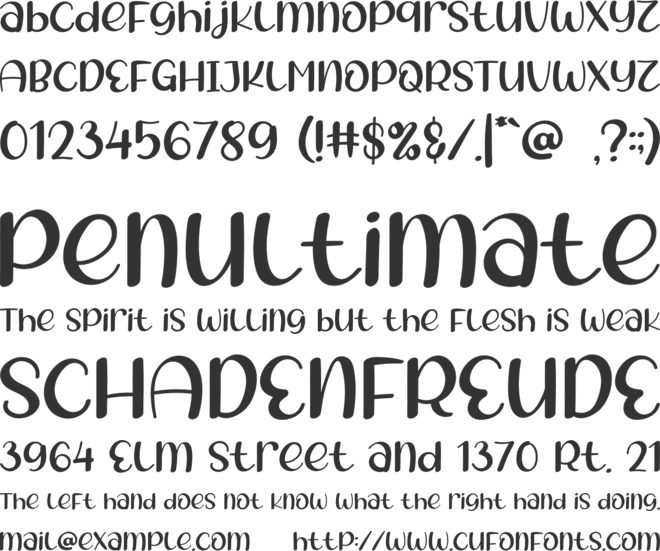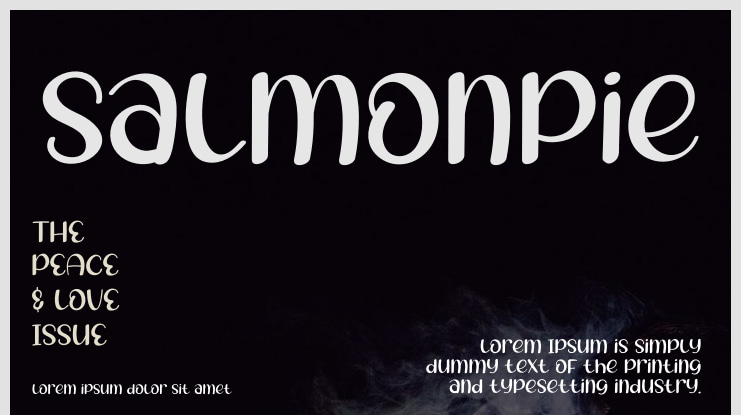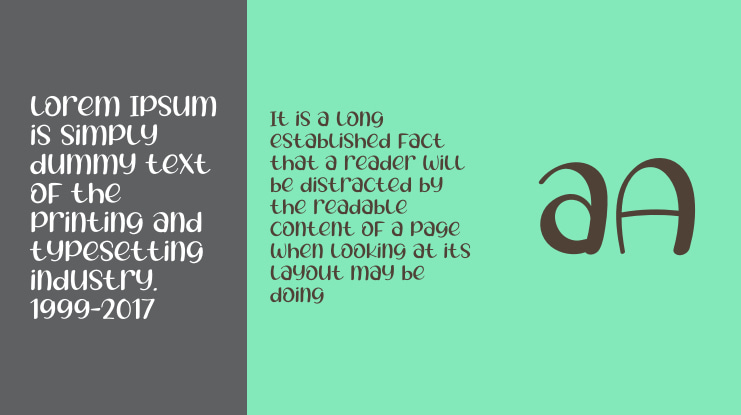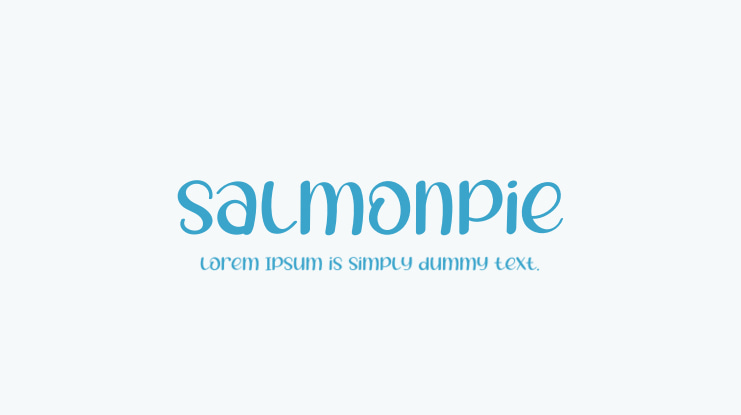
Salmonpie Font
Salmonpie is a quirky and chic lettered display font. It can easily complement a vast array of projects, making your creative ideas stand out! Please note: The Salmonpie display font is prohibited for commercial or profit use without the author’s/admin’s permission. Unauthorized use of this font will result in a penalty five times the specified price. This font is available for demo purposes only (Demo license).